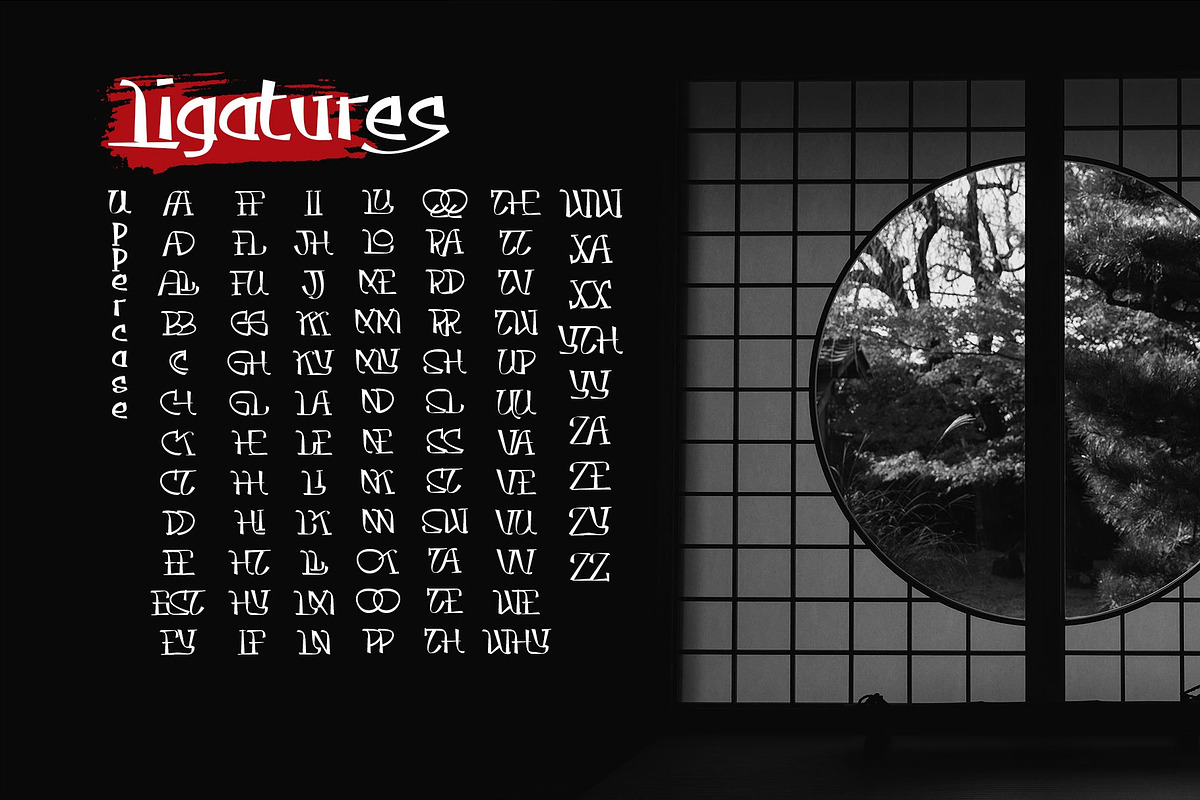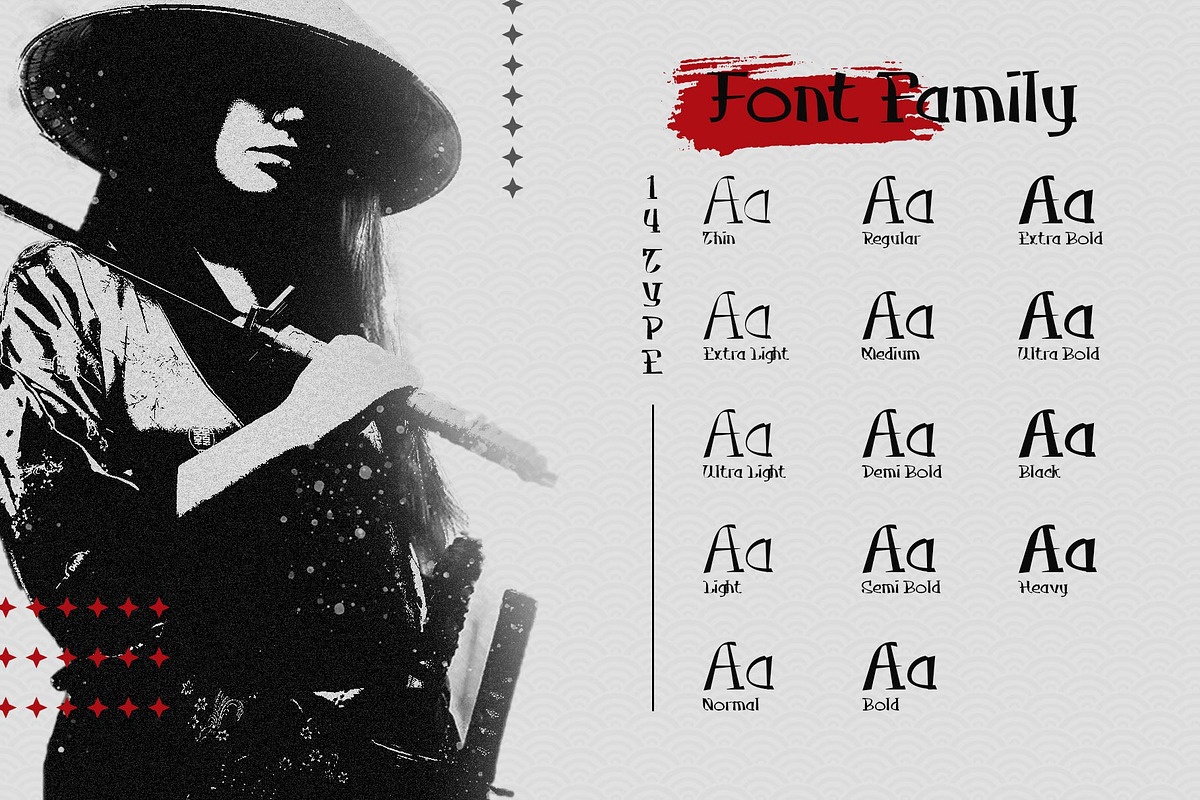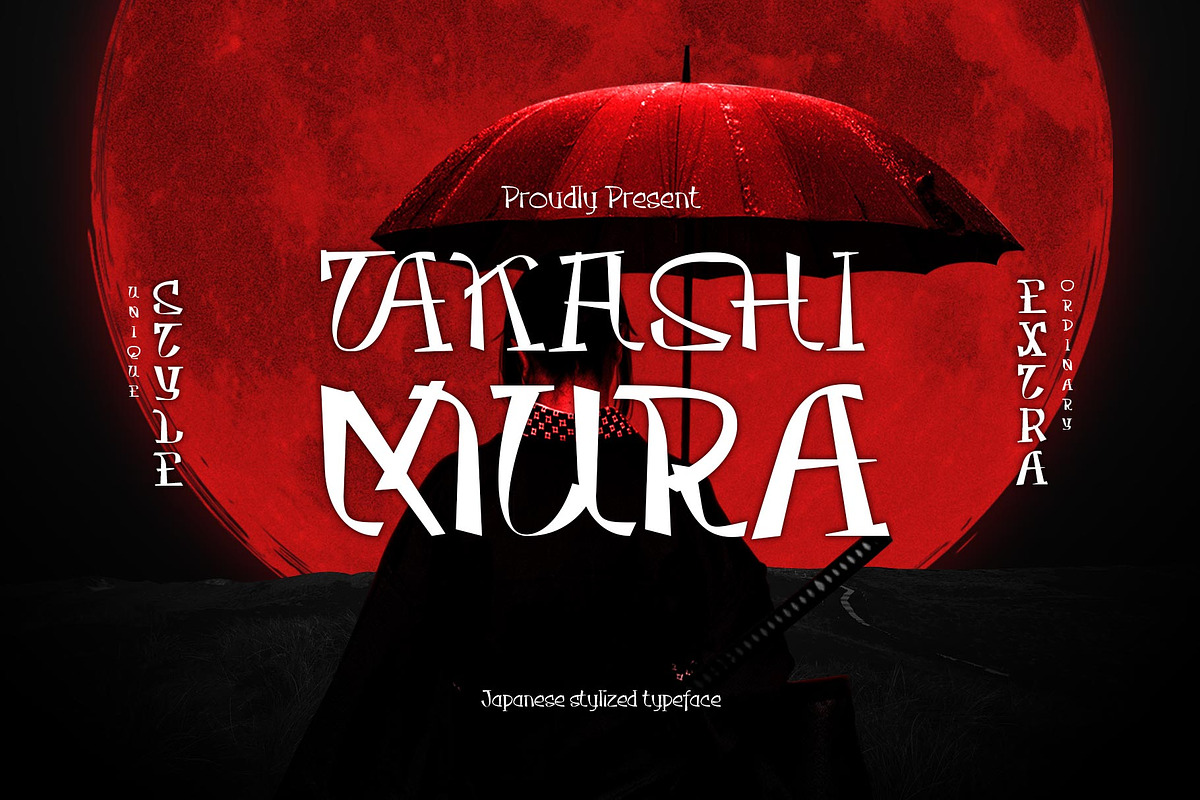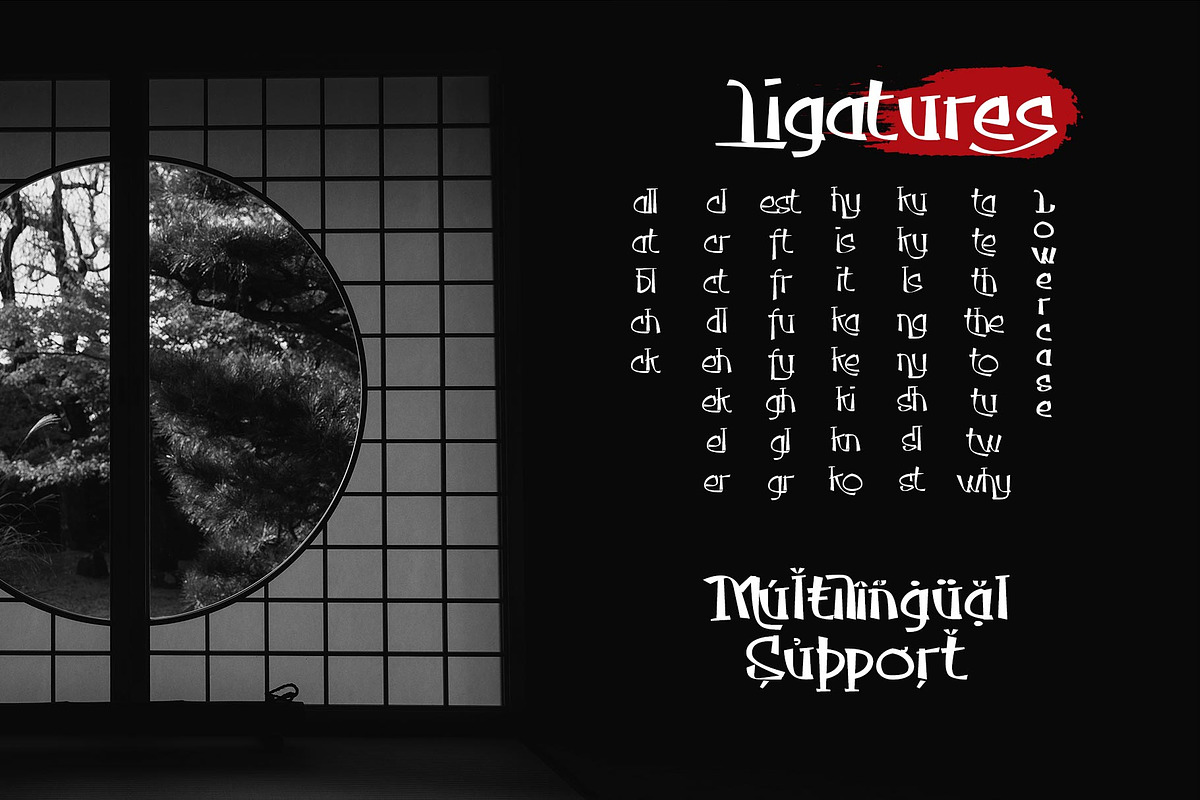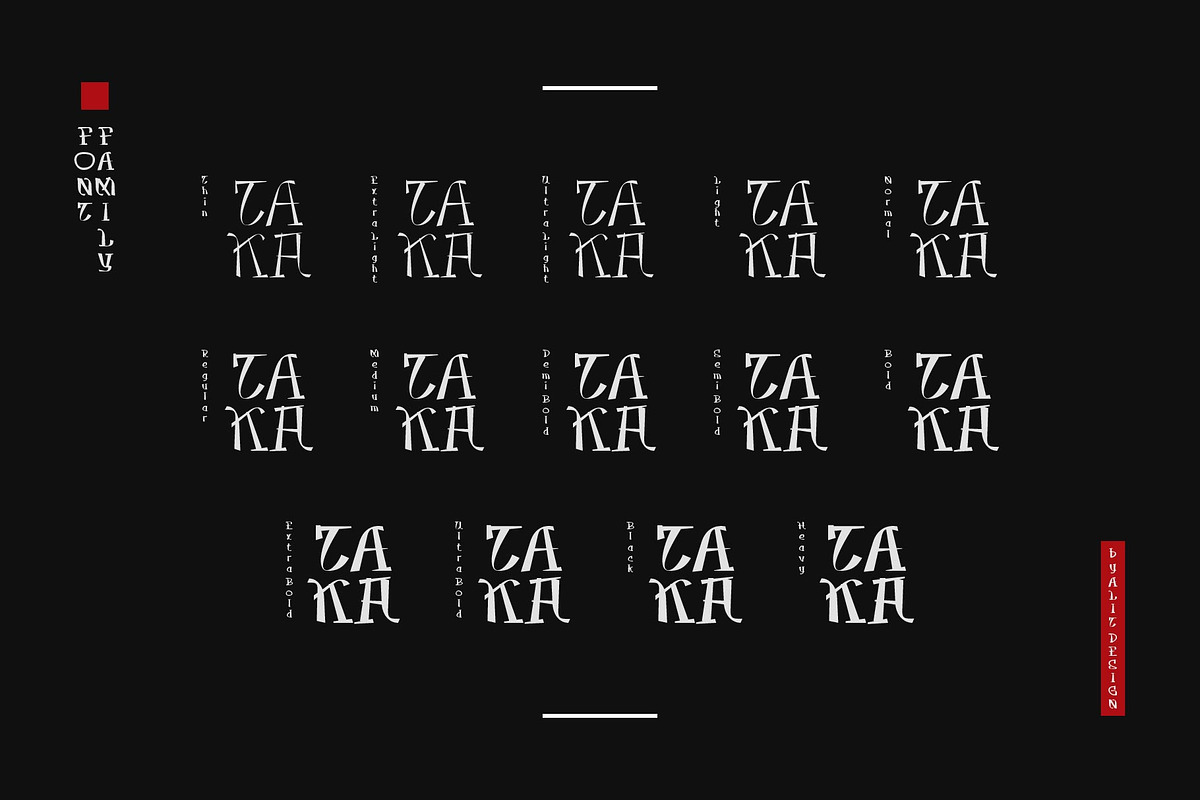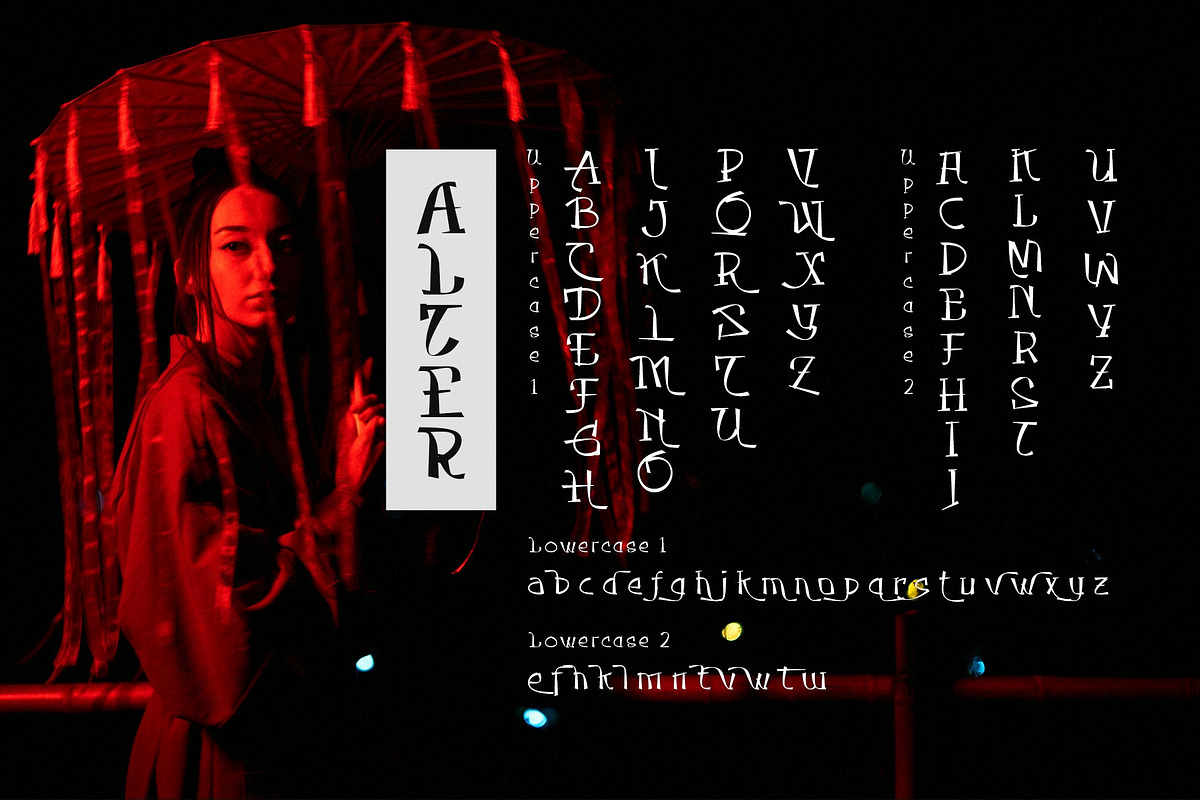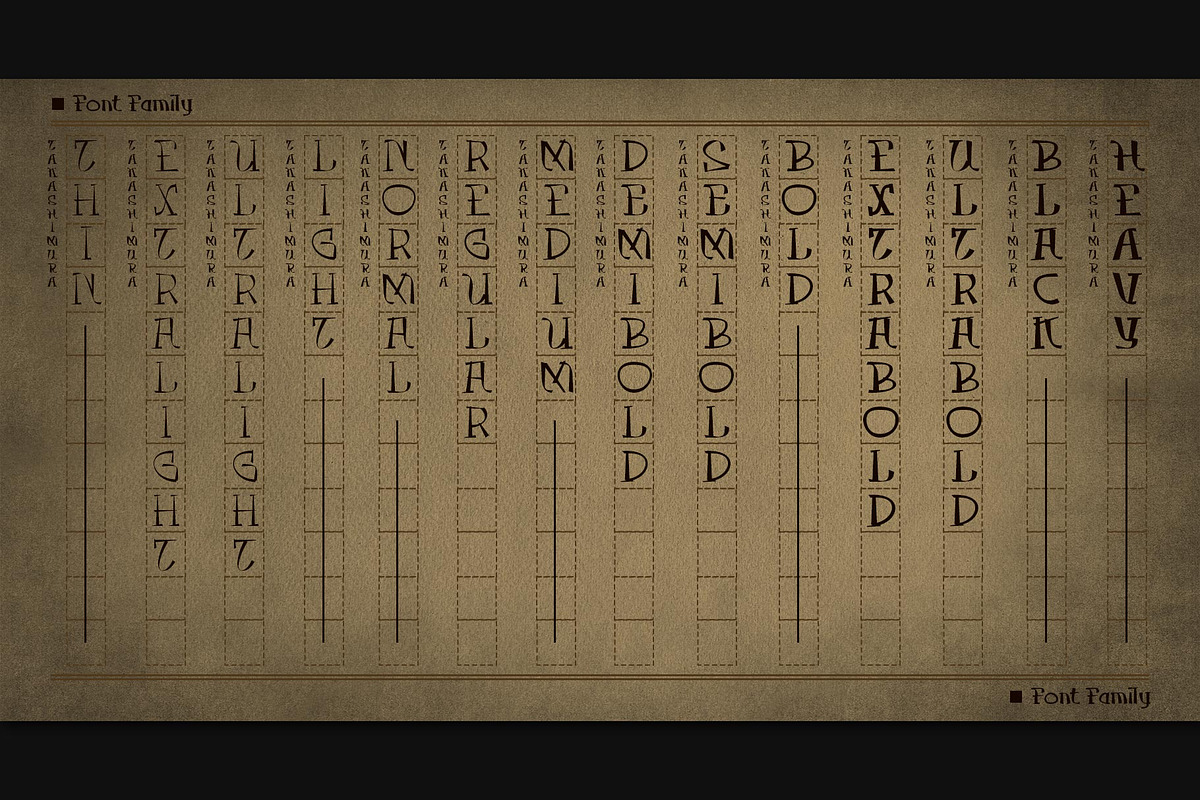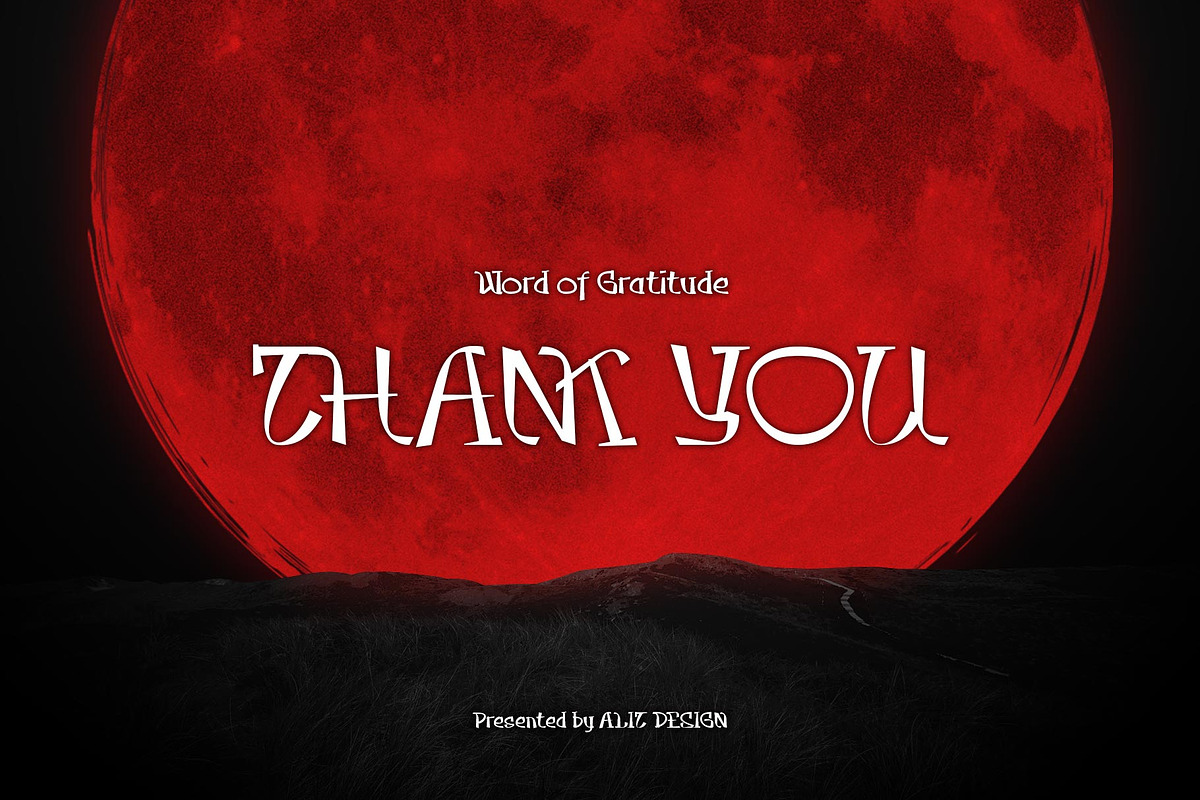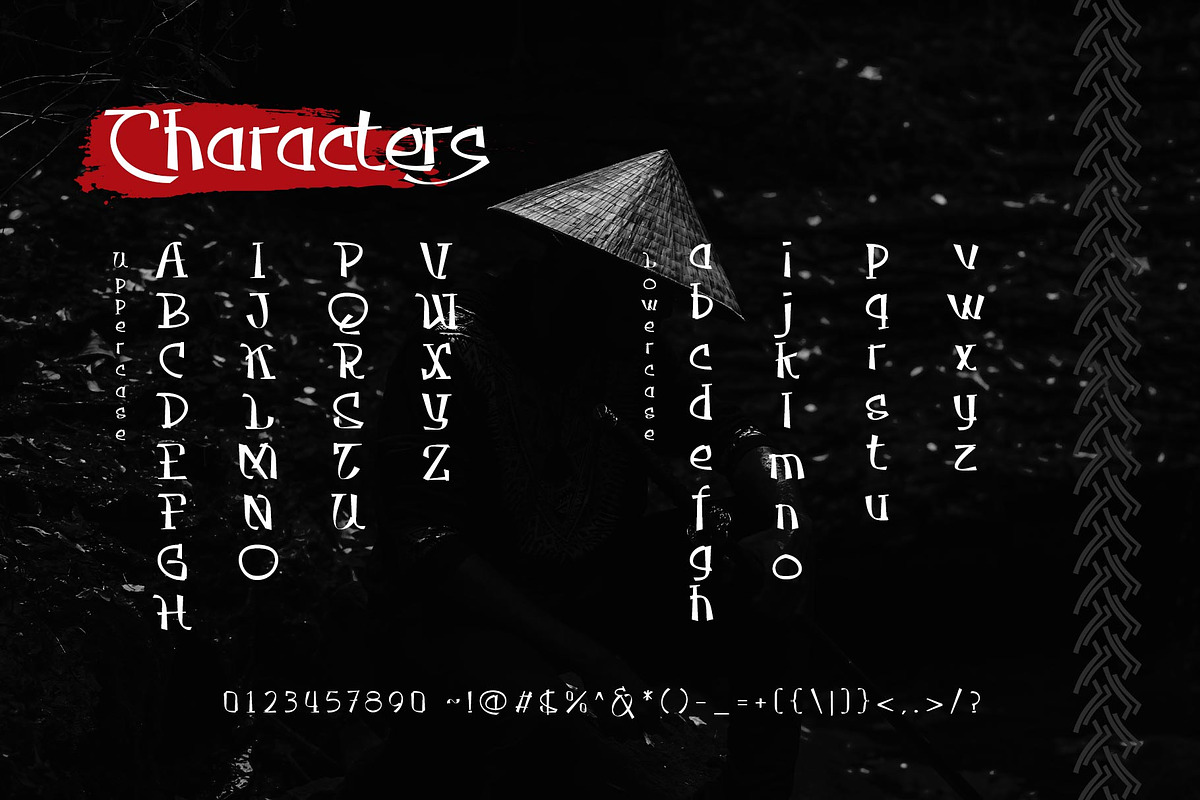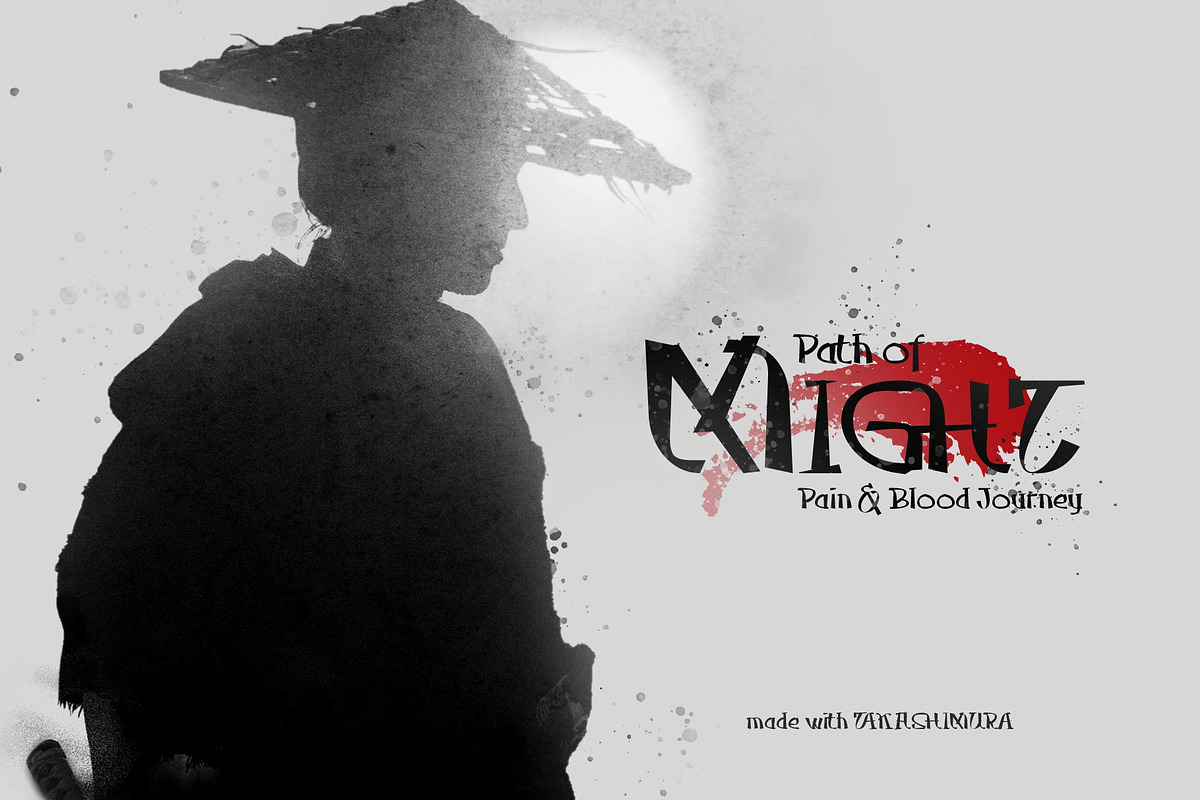
Takashimura Typeface
Introducing Takashimura Typeface
Takasimura was inspired by unique and cool Japanese calligraphy. We created the Takasimura font for a design solution with a Japanese concept but internationally readable. Of course, this font is very suitable for designs with Japanese, Asian and Eastern concepts.